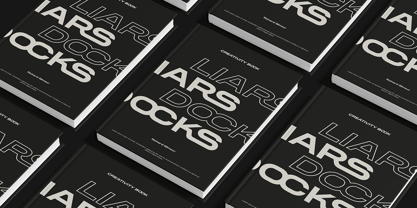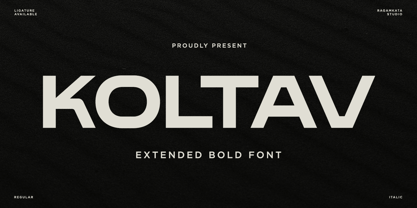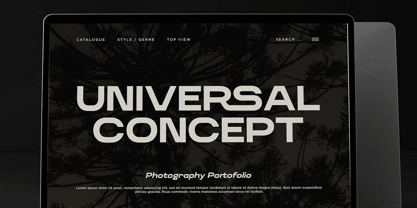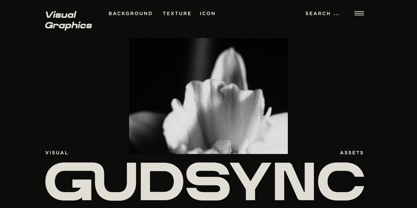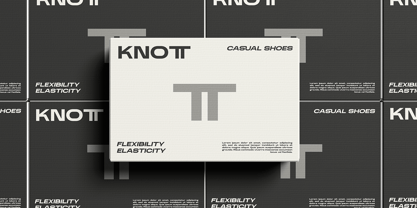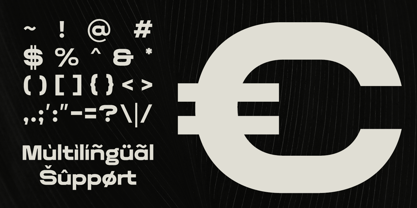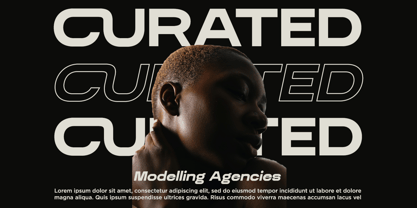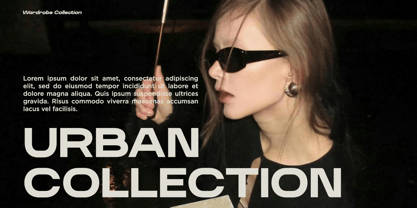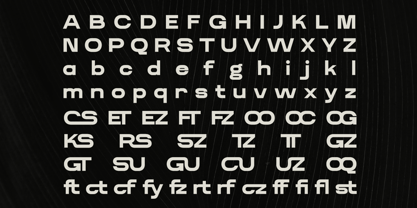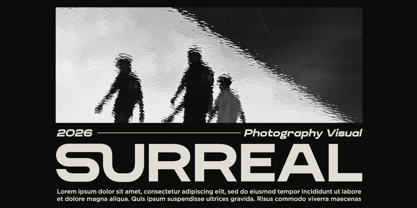
Koltav
by RagamKata
The Koltav Font Family was designed by Yogiswhara Dio Prakoso Riadi and published by RagamKata. Koltav contains 2 styles and family package options. More about this family
Koltav is a powerful extended bold typeface designed to deliver maximum visual impact through its clean geometry and strong character. With wide proportions and confident strokes, Koltav creates a bold, modern, and highly legible presence that instantly captures attention. Its striking form makes it perfect for high-impact headlines, strong branding visuals, and contemporary design projects that require clarity and authority. Crafted for branding designers, creative studios, marketing teams, and digital creators, Koltav provides a versatile typographic solution for bold visual communication. From logo design and brand identity to posters, social media campaigns, packaging, editorial layouts, and digital advertising, this font enhances projects with a confident, modern, and professional appearance. Whether you're developing corporate branding, startup identities, event promotions, product packaging, website headers, fashion campaigns, or bold editorial compositions, Koltav delivers a clean yet commanding aesthetic. Its extended structure ensures strong readability while maintaining a contemporary style that feels both premium and impactful across print and digital platforms. Thank You ! Ragamkata